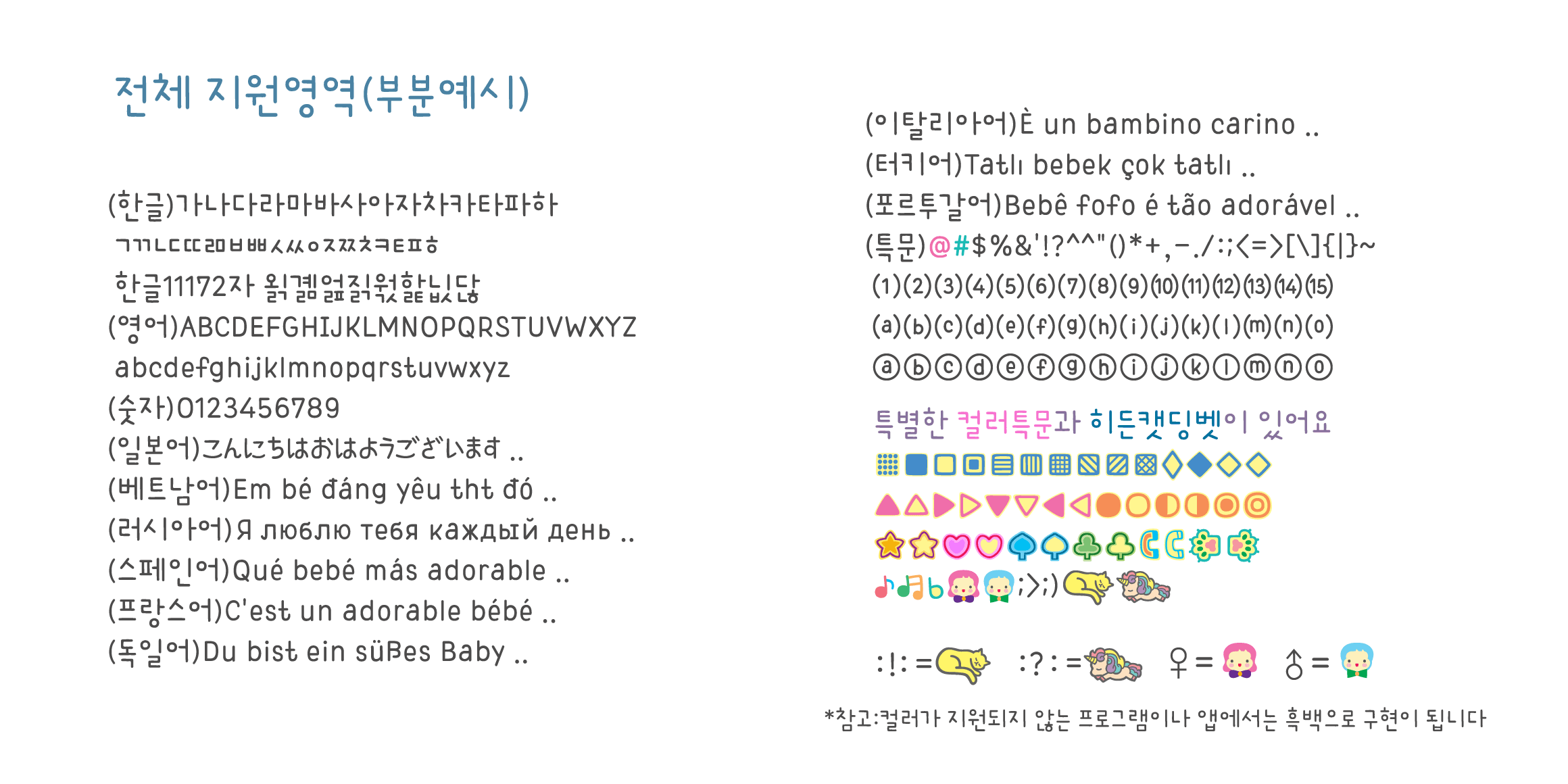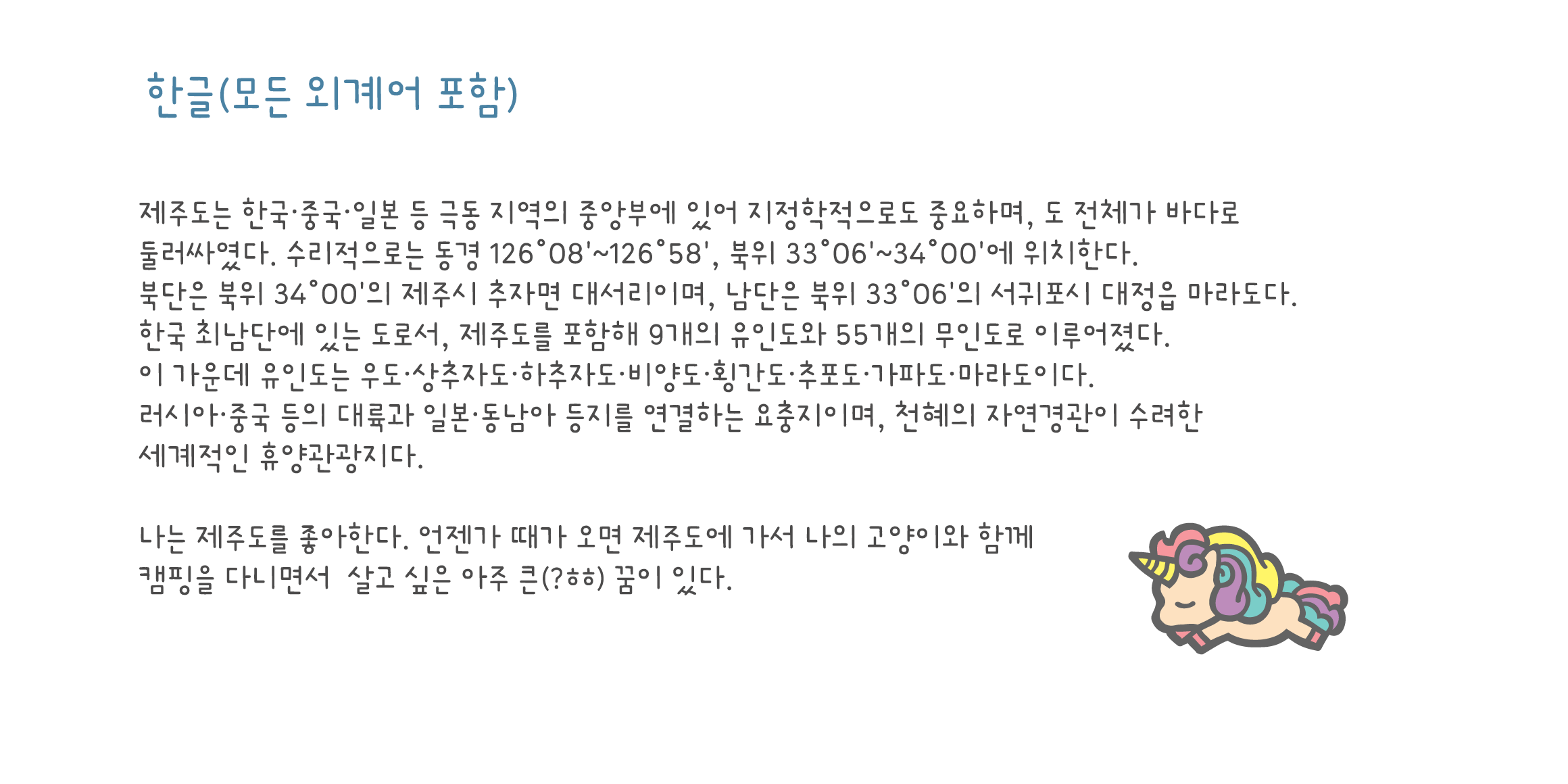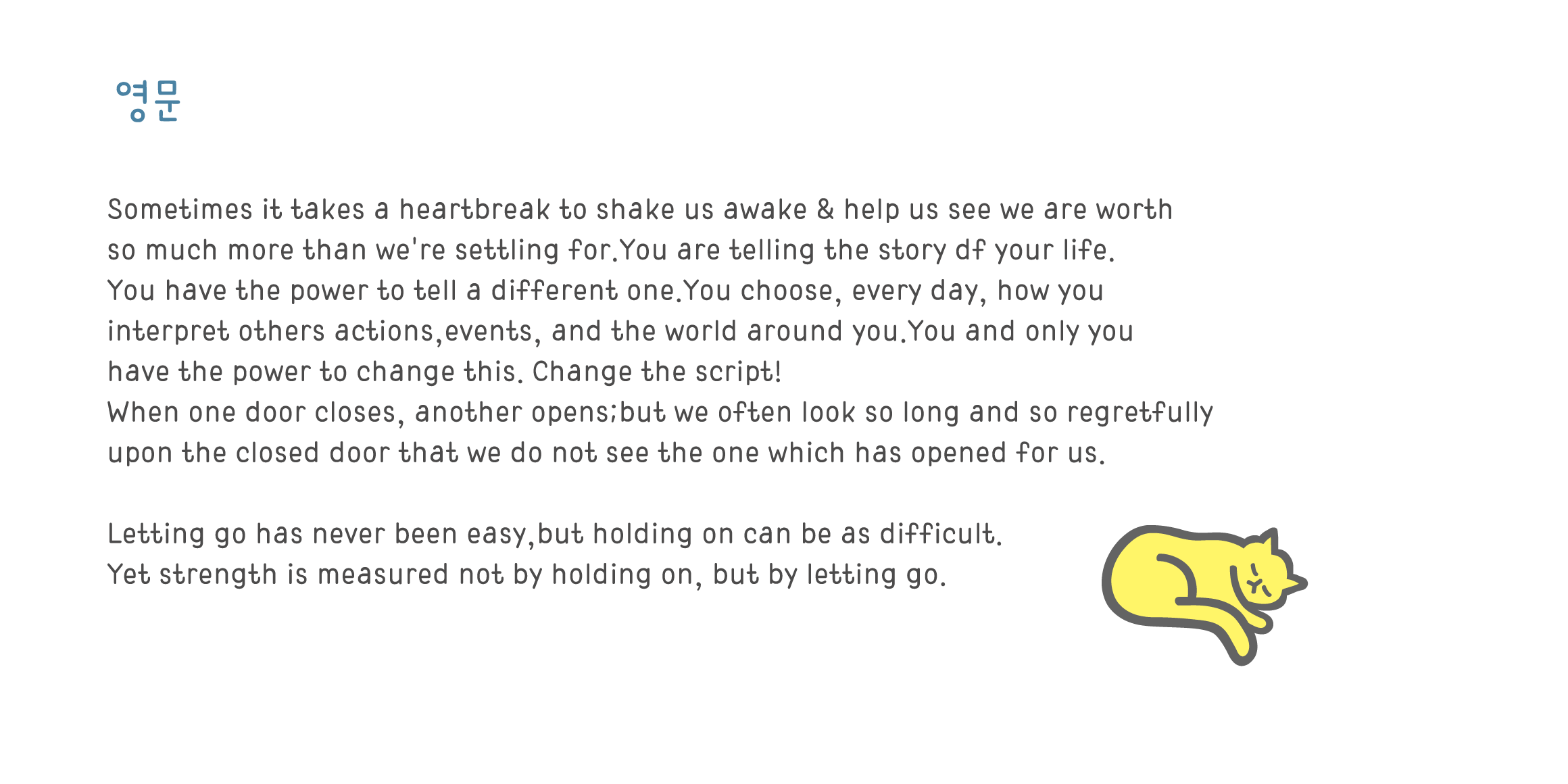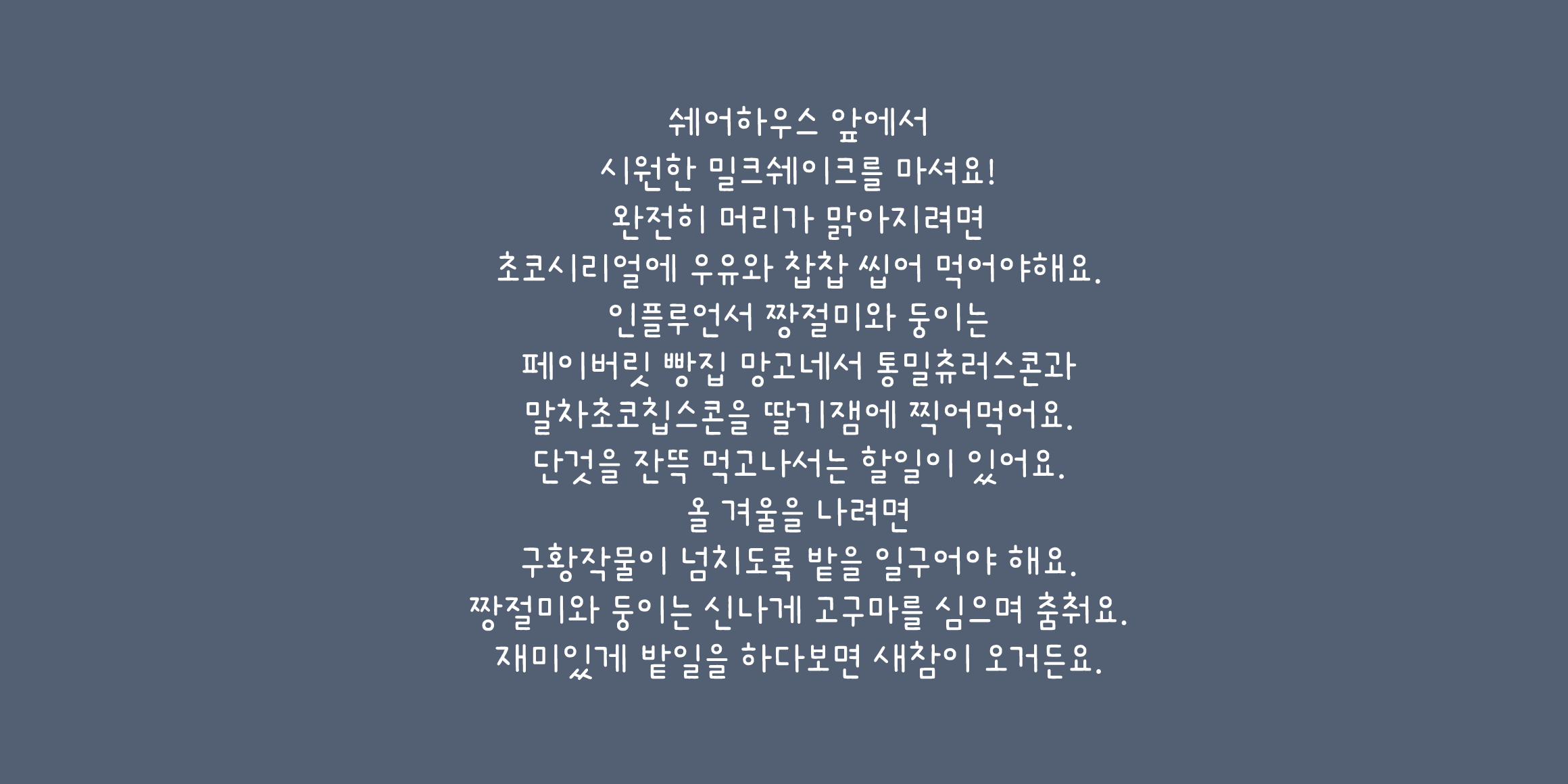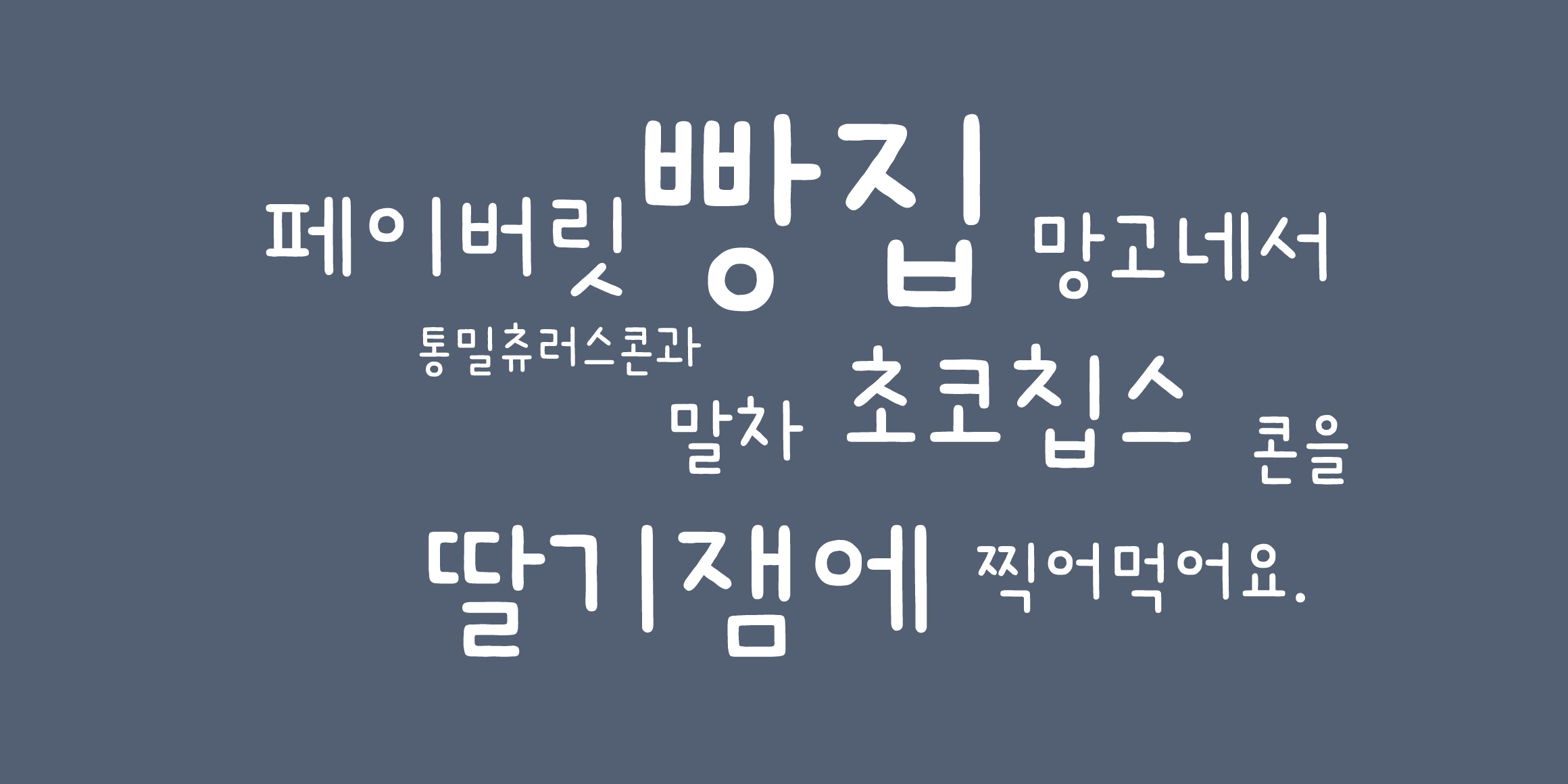
This font is a cute and funny font with girlish sentiment.
♥catfont that delivers happiness.
♥catfont is your pet!!
Including English, Japanese, and Vietnamese.
Germany, France, Russia, Italy, Portugal, Spain, Turkey, etc.
It also supports the languages of various European countries.
It supports a wide range of languages and special characters.
♥ Keyboard : ! : and : ? If you type in a row,
Cat Font's unique dingbet is hidden.
*There may be terminals or apps for which colors are not applied.
*Color letters may not change in thickness even if they are bolded.